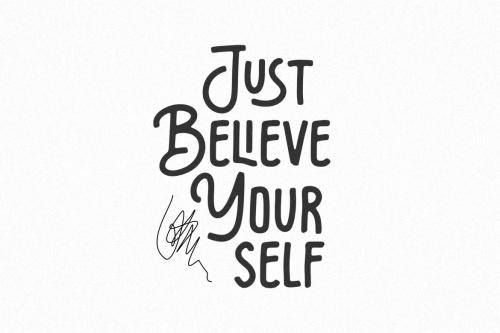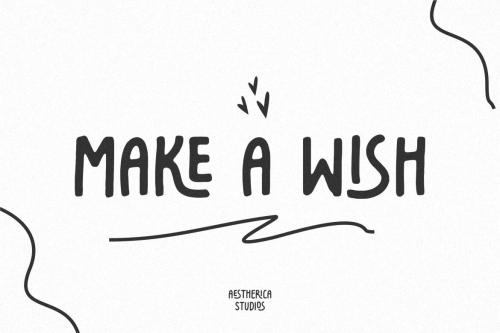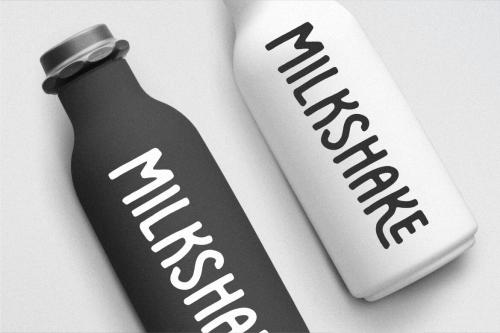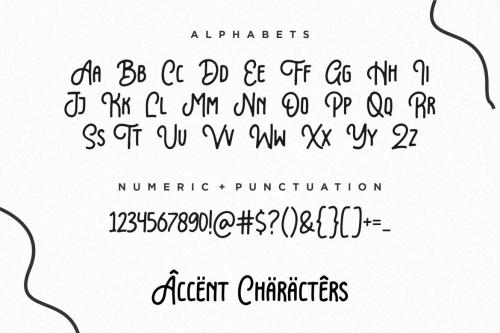
Introducing the new Fun Handwritten Font by Aestherica Studio.
Proudly Present, The Gloves
The Gloves is perfect for product packaging, branding project, megazine, social media, wedding, or just used to express words above the background.